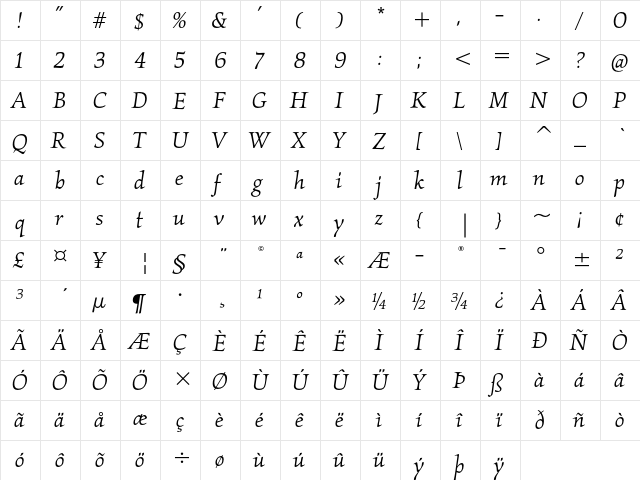
ITC Kallos LT Std Book Italic Font Preview
Design Context for ITC Kallos LT Std Typeface
ITC Kallos LT Std takes a measured approach to typography — its balanced proportions and neutral character make it a reliable workhorse for both digital and print work. The dynamic lean of this cut emphasises speed and emphasis in any layout. The delicate stroke weight brings airiness and refinement to layouts.
Pro Tip: Try ITC Kallos LT Std for annotation and caption copy alongside an upright companion — the contrast in angle creates a dynamic but ordered typographic system.